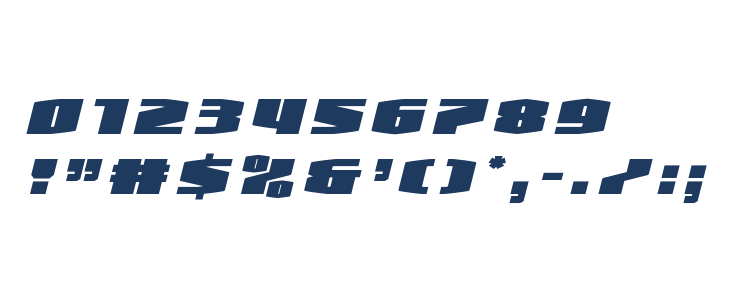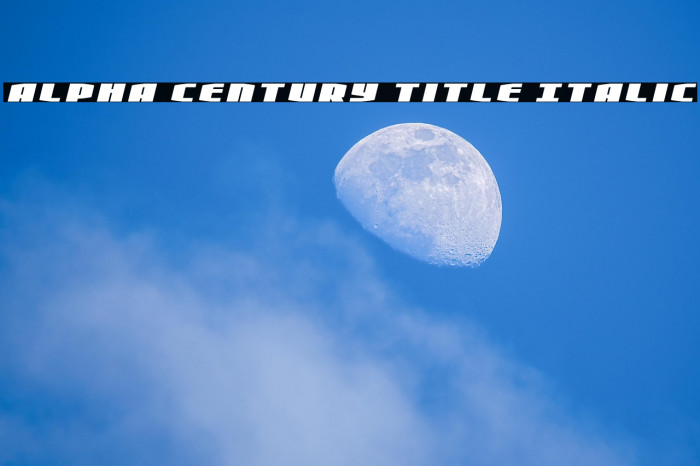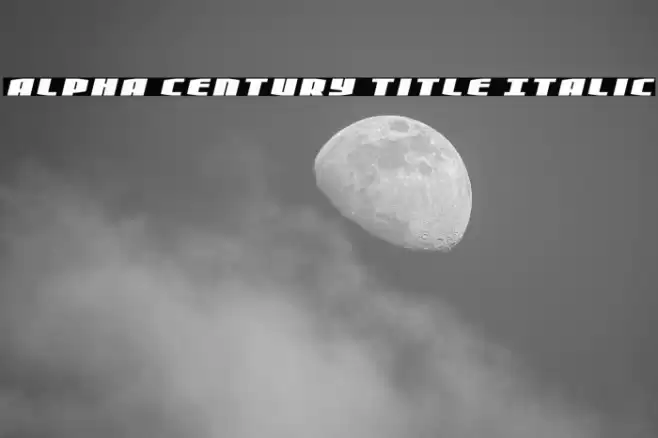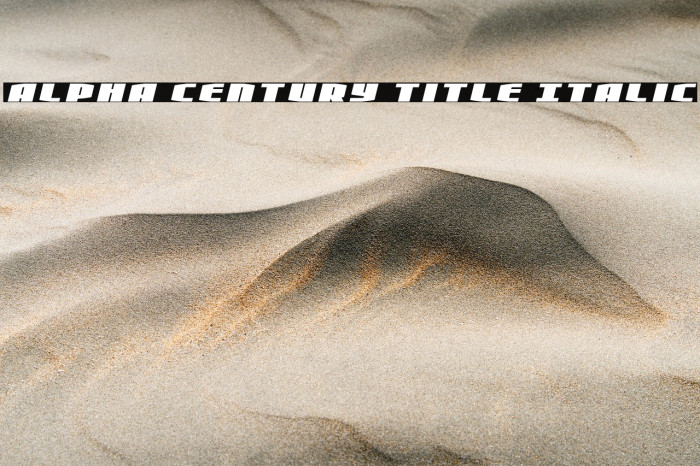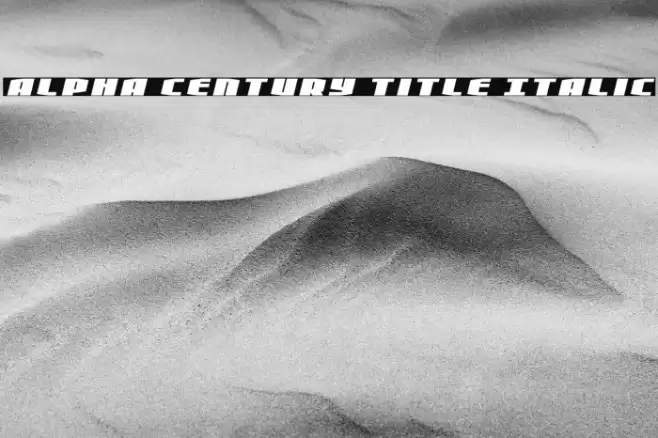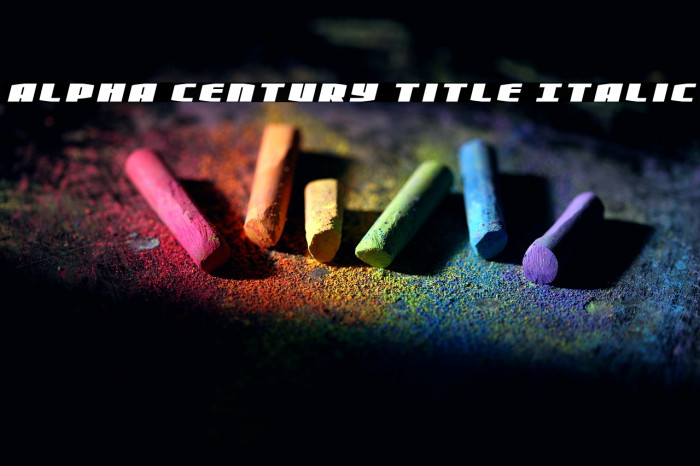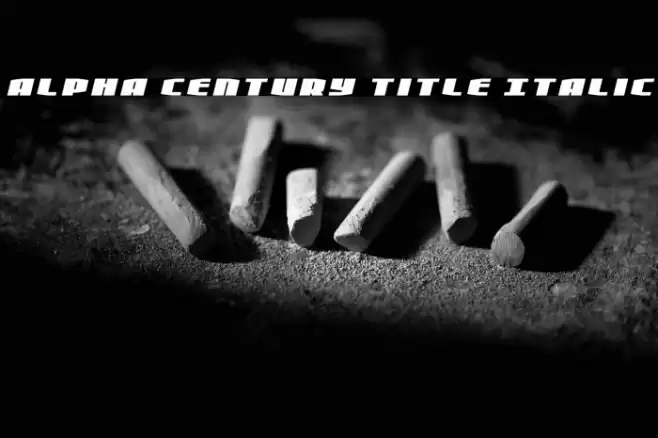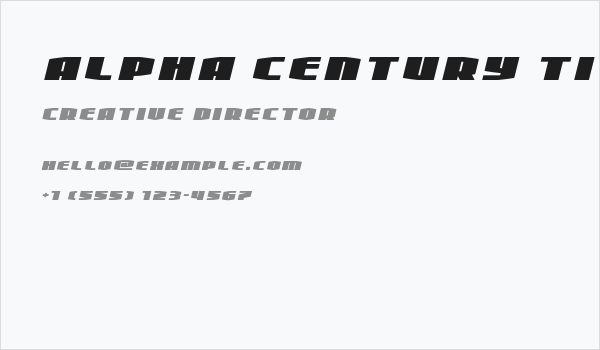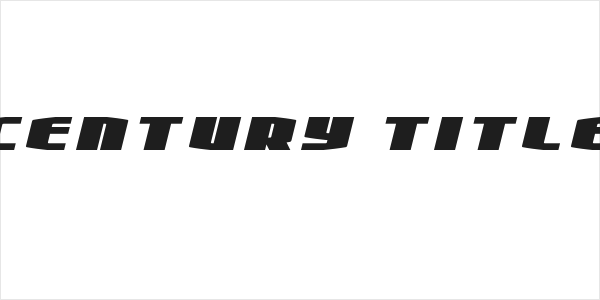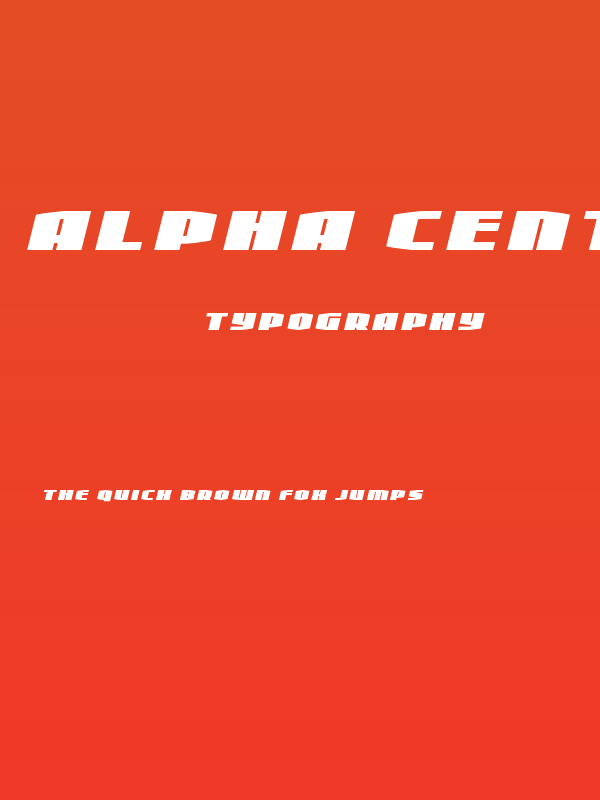
Alpha Century Title Italic Font
Alpha Century Title Italic Description
This font presents a bold and dynamic style with a futuristic flair. The characters are designed with sharp angles and a slight italic slant, giving them a sense of movement and energy. The uppercase and lowercase letters maintain a consistent width, creating a uniform appearance. The numbers and special characters follow the same design principles, ensuring cohesion across all elements. The font's bold weight and geometric shapes make it stand out, ideal for projects that require a modern and impactful look.
| Proposed Projects | Ideal for sci-fi themed designs, video game titles, technology branding, and modern posters. |